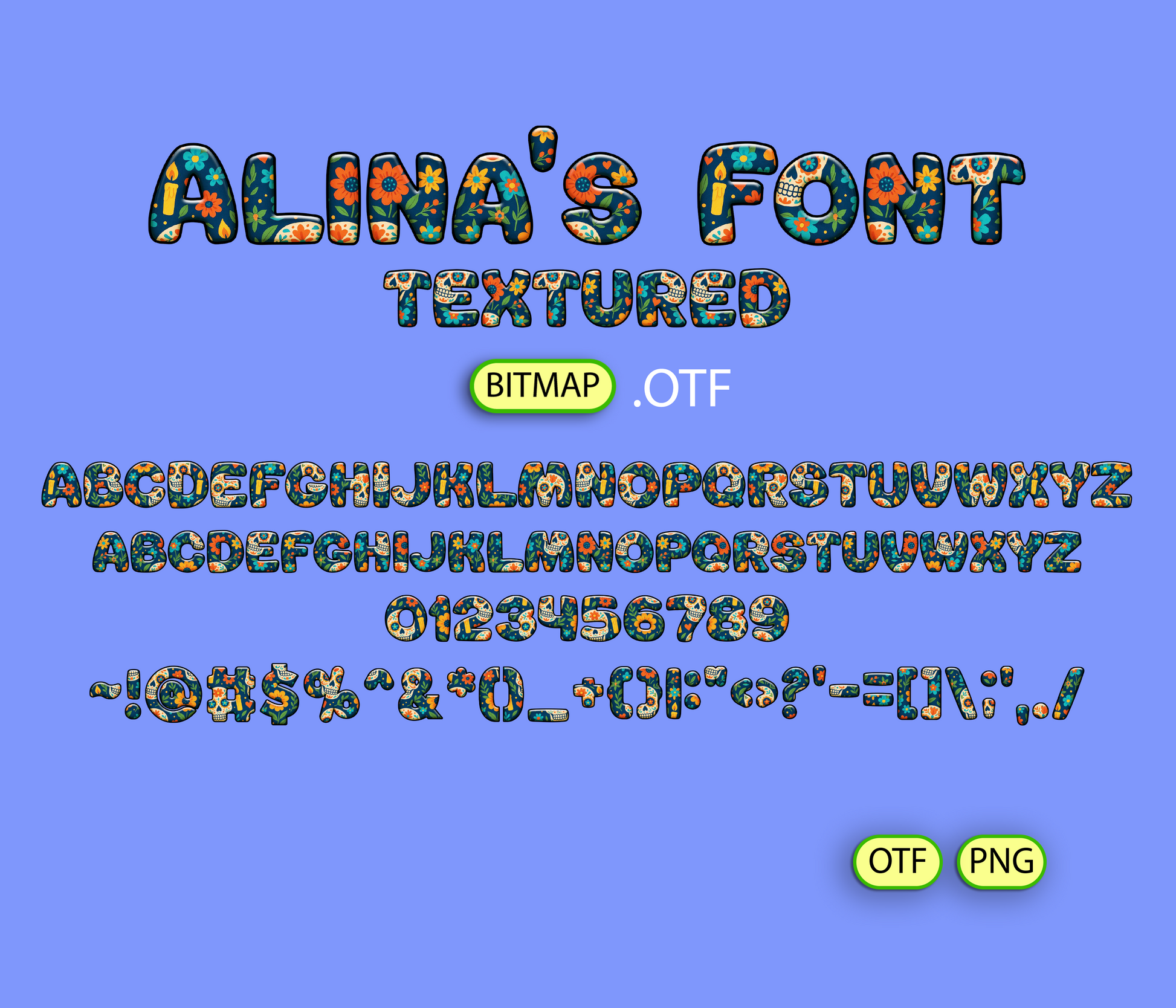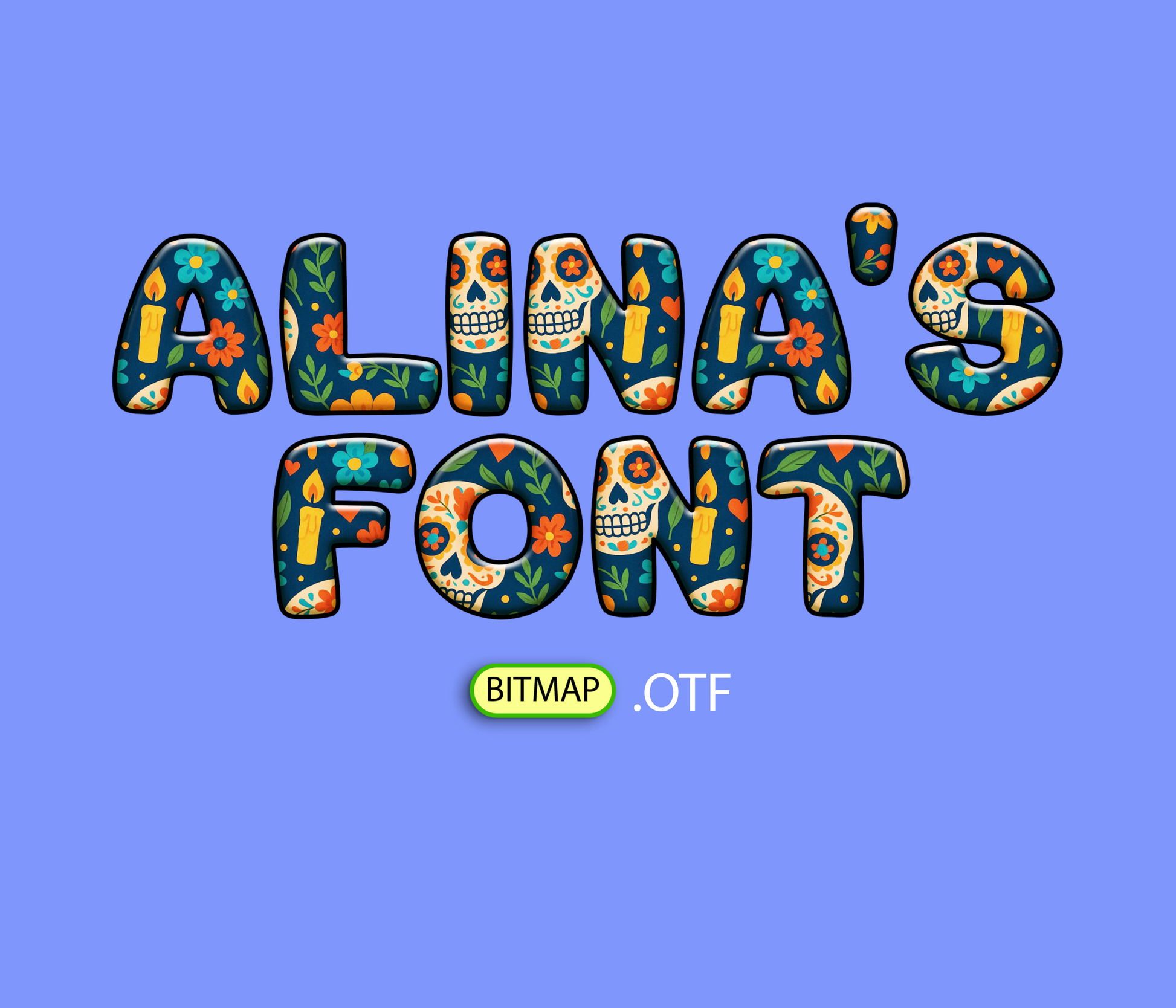
FREE Tierra Sagrada Pattern Font
Tierra Sagrada Typeface Textured
Explore the mystical beauty of Mexico's timeless traditions with our Tierra Sagrada Typeface, channeling the essence of volcanic mountains and ceremonial plazas. Created for authentic dining establishments, artisan brands, celebration planners, and design innovators, this font captures the dramatic, spiritual energy of ancient rituals and colonial splendor in your creative work. Produce stunning graphics, Mexican-heritage products, or web content with the majestic, earthy character of carved stone and painted murals.
Our Tierra Sagrada Typeface features elaborate, temple-inspired decorations and powerful characters that reflect the sacred yet celebratory essence of Mexican indigenous artistry. Ideal for:
- Dining Establishments: Develop memorable logos, interior signage, and marketing collateral for mezcal bars, tortillerÃa shops, and regional Mexican bistros
- Traditional Festivities: Perfect for Guelaguetza celebrations, DÃa de la Revolución events, and ceremonial materials that honor Mexican spirituality
- Web Presence: Enhance digital platforms, content marketing, and social media with striking lettering that conveys mysticism and cultural depth
- Heritage Tourism: Infuse authentic Mexican character into archaeological guides, spiritual journey brochures, and promotional content for sacred destinations
- Artistic Projects: Bring pre-Hispanic elegance to journal covers, artisan crafts, and decorative elements inspired by Oaxacan textiles